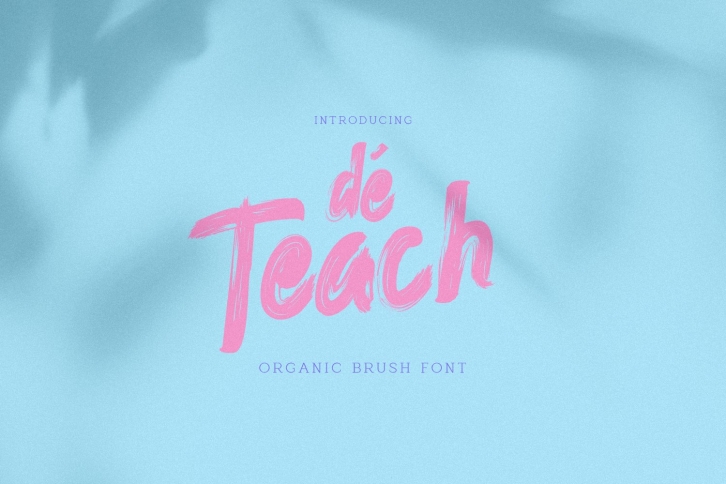
deTeach is a cool, classy, and versatile brush font with a level of detail that makes the paint appear almost dry because each and every stroke can be seen. Would be perfect for posters, packaging, advertising, headlines, branding, signage, and anything else you can think of.